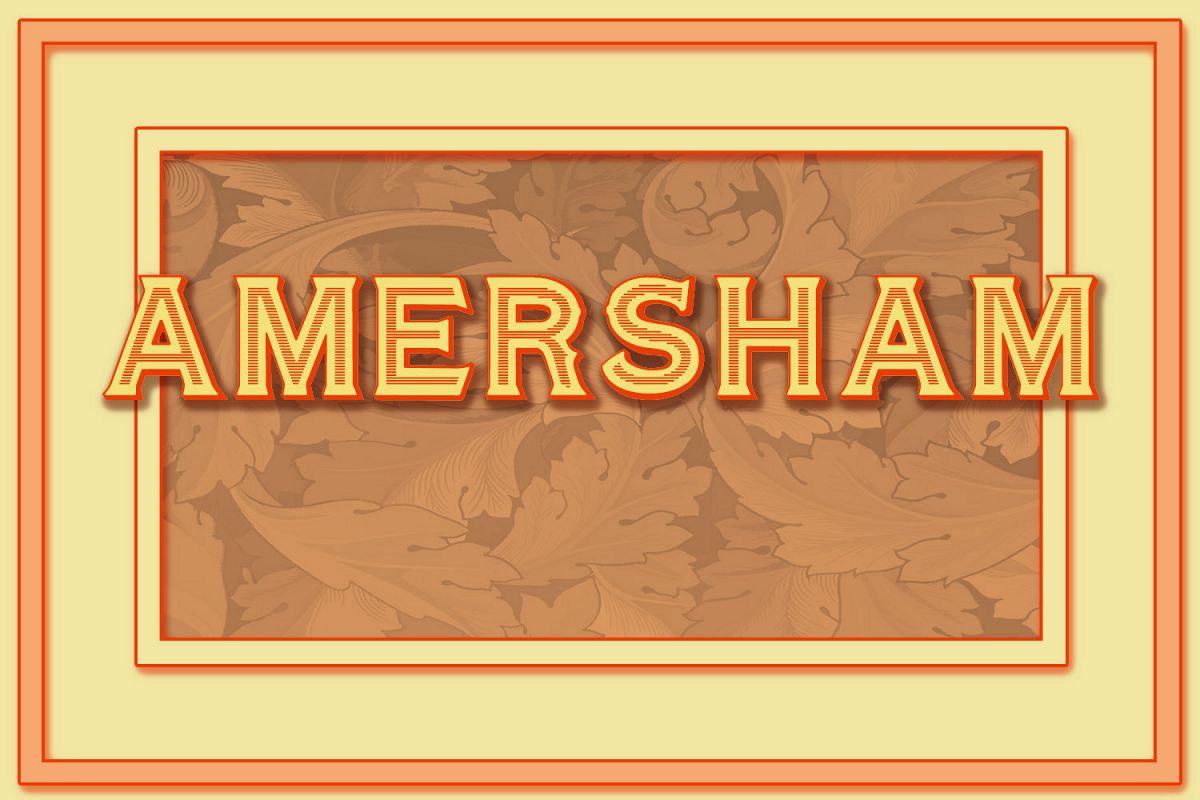
Amersham
Amersham is a splendid 'engraved' copperplate Roman display typeface, ideal for signage, poster work and book covers, and just about any kind of design work you care to think of!
Add a Little Vintage inspired fun to your next project.